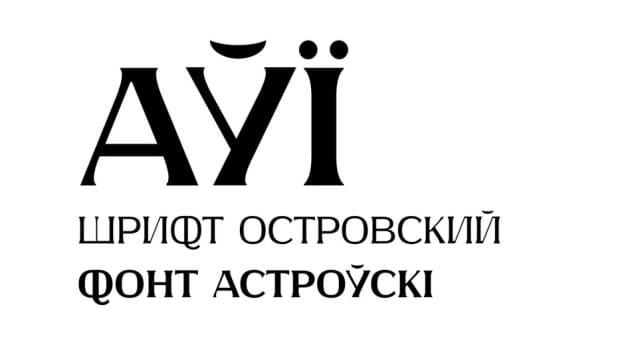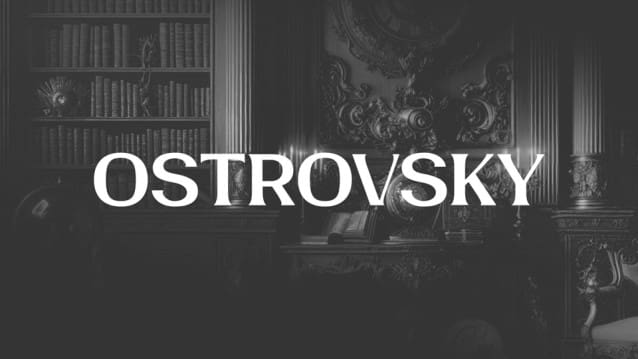
Ostrovsky Font
Ostrovsky Font is a vintage serif font inspired by the weathered charm of old street signages. The font is crafted with classic serifs and subtle imperfections, evoking nostalgia of craftsmanship and authenticity.
With its timeless appeal and vintage aesthetic, Ostrovsky font is perfect for projects that aim to capture the essence of retro nostalgia. Whether you’re designing posters, labels, or branding materials, this font adds a touch of vintage flair and authenticity to your text.